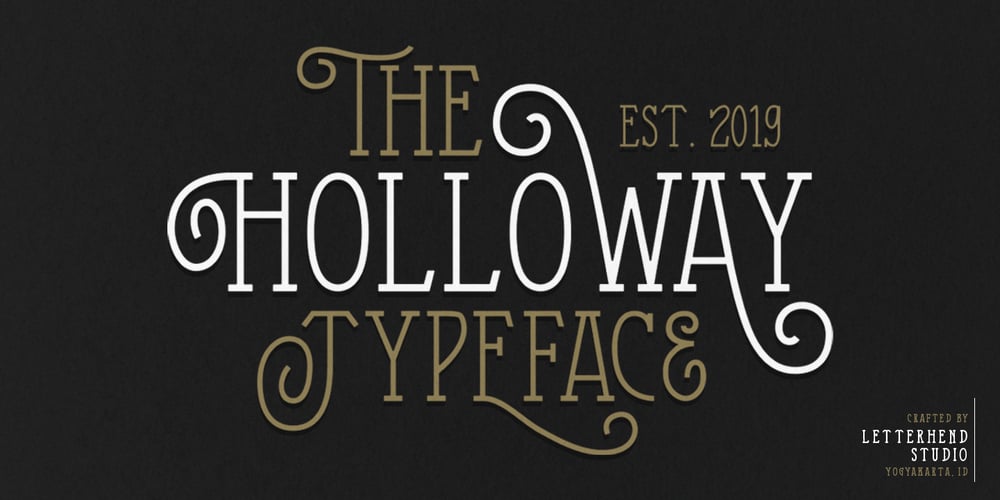
The Holloway Font Family was designed by Hendry Juanda and published by Letterhend. The Holloway contains 5 styles and family package options. We’re back with The Holloway, a one of a kind product that will fulfil your needs for your design project, branding, apparel, and more. Holloway is a unique, monoline serif font that has swashes as the main feature. Just play around and see for yourself! This typeface comes in uppercase, lowercase, punctuation, symbols & numerals, 9 stylistic set alternates, ligatures, and also multilingual support and PUA encoding. Foreign Languages Support: ÀÁÂÃÄÅÇÈÉÊËÌÍÎÏÑÒÓÔÕÖØÙÚÛÜÝßàáâãäåæçèéêëìíîïñòóôõöøùúûü So what do you waiting for? Go get it now! We hope you enjoy the font, please feel free to comment if you have any thoughts or feedback. Or simply send us a PM or email us letterhend@gmail.com